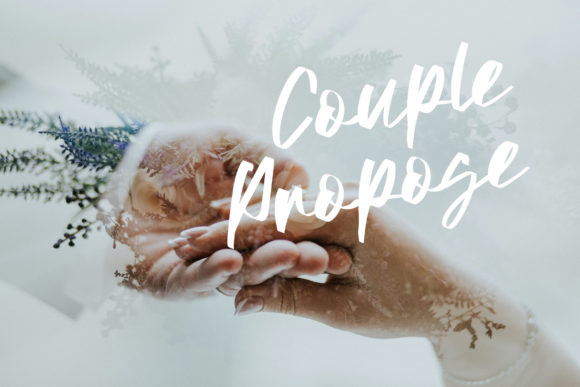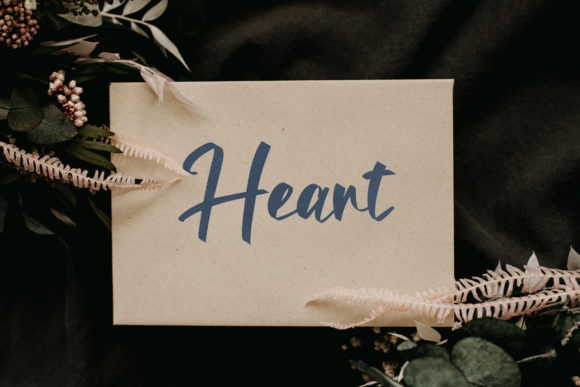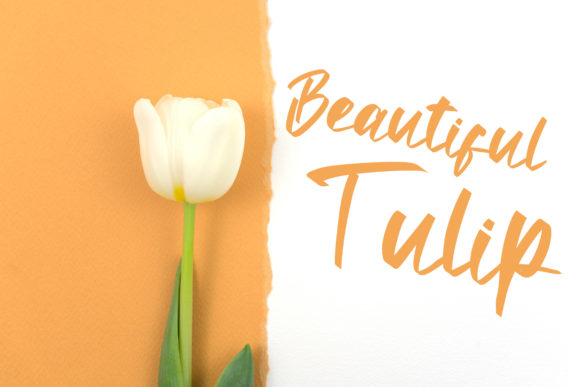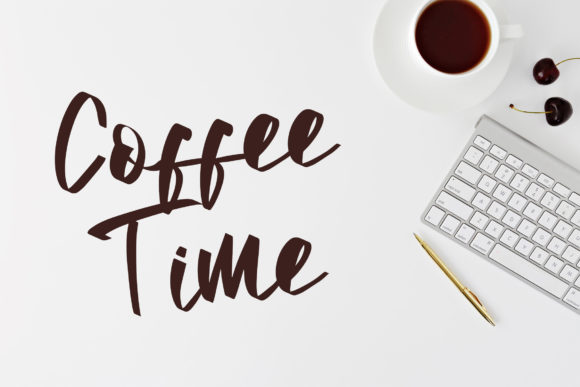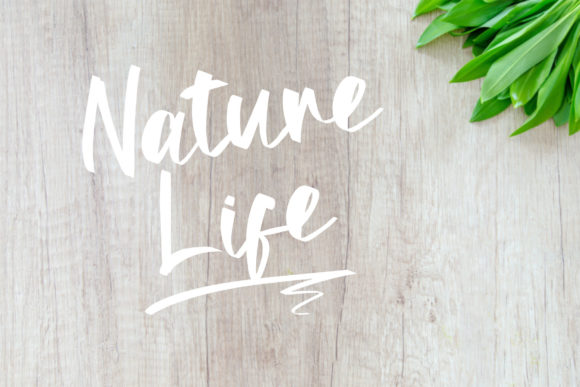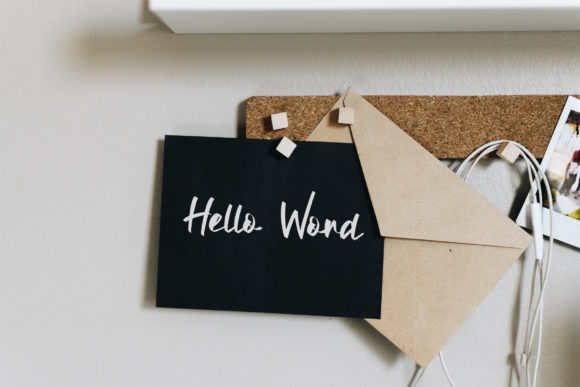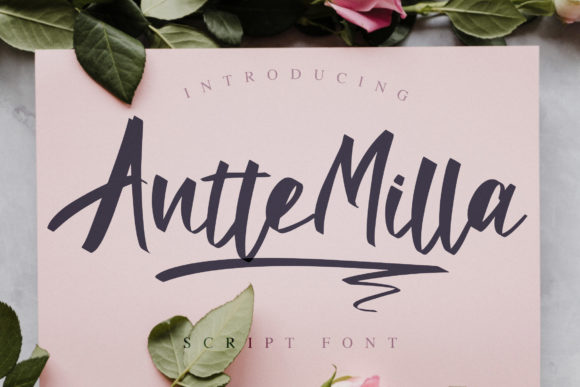
Discover the Elegance of Antte Milla Font: A Lovely Brushed Script Font
In the world of typography, fonts play a crucial role in conveying the tone and personality of a design. For designers and crafters looking to add a touch of elegance and class to their projects, Antte Milla Font is an excellent choice. This lovely brushed script font is specifically crafted to provide a beautiful and refreshing look to designs, making it perfect for a wide range of applications.
What Makes Antte Milla Font Stand Out?
Antte Milla Font is a unique and stylish script font that boasts a distinctive brushed look. Its elegant and refined appearance makes it ideal for designs that require a sophisticated and high-end feel. The font’s creator has carefully crafted each letter to ensure that it exudes a sense of luxury and refinement, making it perfect for use in:
• Logos and branding materials
• Packaging and product design
• Advertising and marketing materials
• Digital and print media
Key Features of Antte Milla Font
Antte Milla Font comes with a range of features that make it an excellent choice for designers and crafters. Some of its key features include:
• Elegant Brushed Look: The font’s brushed script style gives it a unique and sophisticated appearance that is sure to elevate any design.
• High-Quality Letters: Each letter has been carefully crafted to ensure that it is clear, legible, and visually appealing.
• Easy to Read: Despite its elegant appearance, Antte Milla Font is easy to read, making it perfect for use in body text and captions.
• Versatile: The font is suitable for use in a wide range of design applications, from logos and branding to packaging and advertising.
How to Use Antte Milla Font in Your Designs
Using Antte Milla Font in your designs is easy. Here are a few tips to get you started:
1. Pair it with Other Fonts: Antte Milla Font pairs well with other fonts, including sans-serif and serif fonts. Experiment with different combinations to find the perfect look for your design.
2. Use it for Headings and Titles: The font’s elegant appearance makes it perfect for use in headings and titles. Use it to add a touch of sophistication to your design.
3. Experiment with Colors: Antte Milla Font looks great in a range of colors, from bold and bright to soft and pastel. Experiment with different colors to find the perfect look for your design.
Why Choose Antte Milla Font?
With so many fonts available, why choose Antte Milla Font? Here are a few reasons why designers and crafters love this lovely brushed script font:
• Unique and Stylish: Antte Milla Font is a unique and stylish font that will add a touch of elegance to any design.
• High-Quality: The font is of exceptionally high quality, with clear and legible letters that are perfect for use in a wide range of design applications.
• Ease of Use: Antte Milla Font is easy to use and pairs well with other fonts, making it perfect for designers and crafters of all levels.
In conclusion, Antte Milla Font is a lovely brushed script font that exudes elegance and class. Its unique and stylish appearance makes it perfect for designers and crafters looking to add a touch of sophistication to their designs. With its high-quality letters, ease of use, and versatility, Antte Milla Font is an excellent choice for a wide range of design applications.